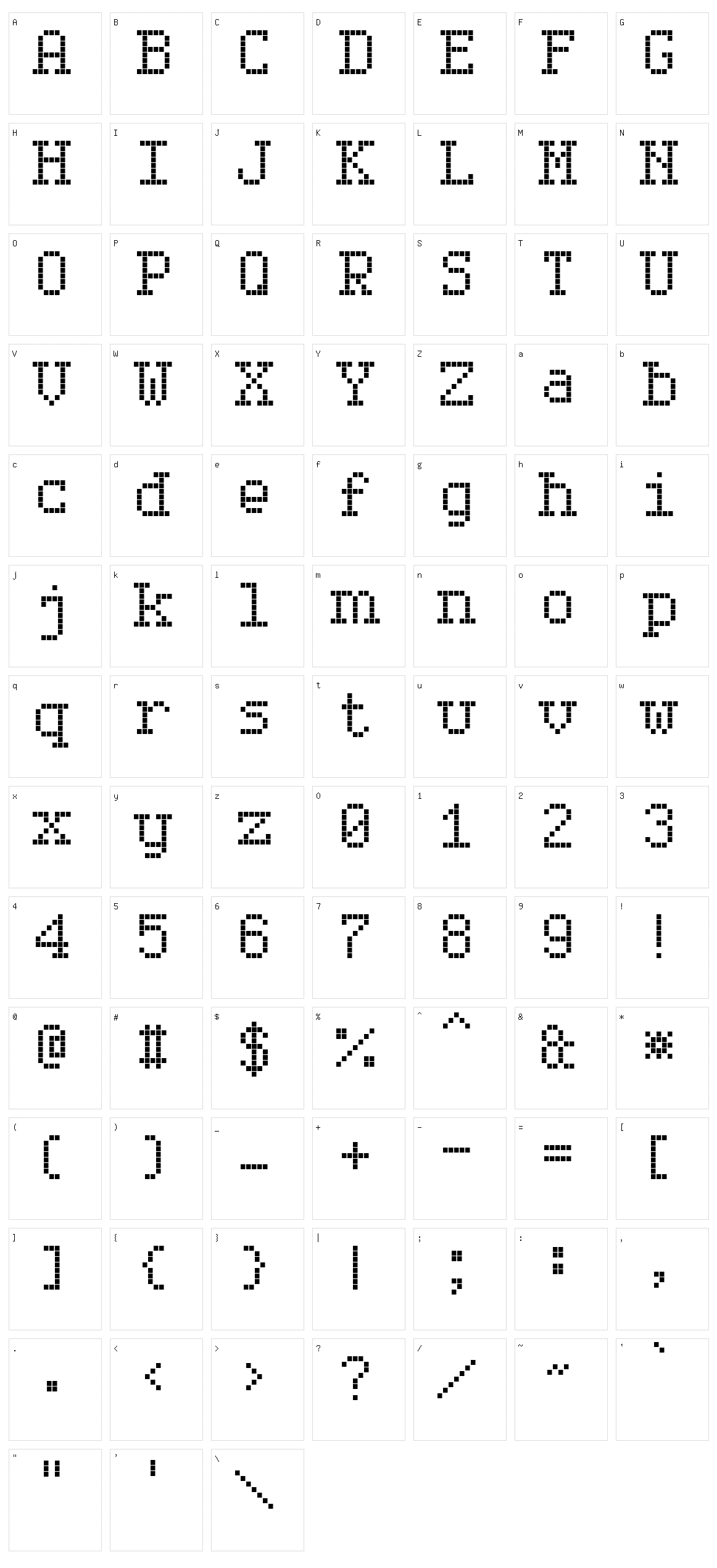
Serif LED Board-7
Designed by: Style-7
This is original font created in style a LED (Light Emitting Diode) matrix 8*5 units. Latin and Cyrillic code pages are supported.